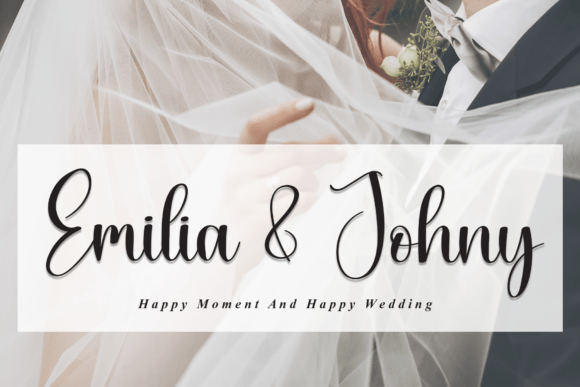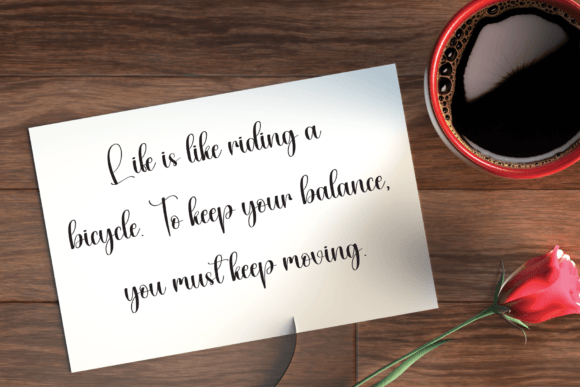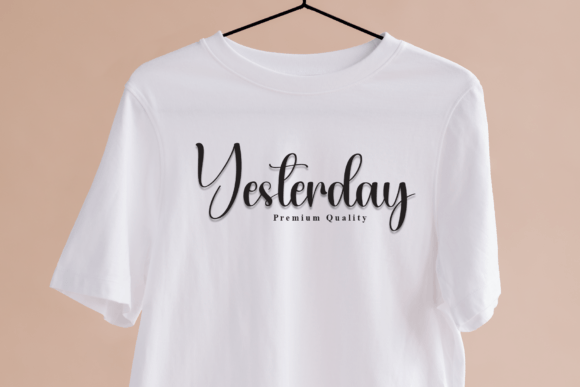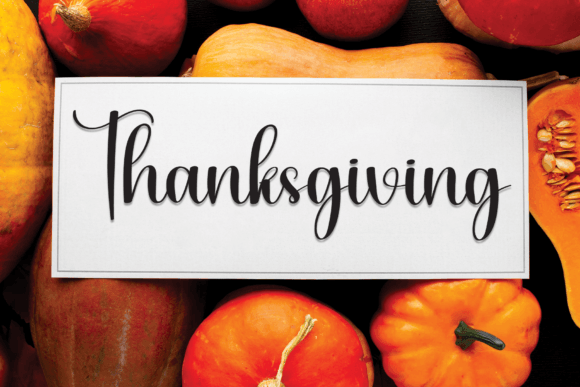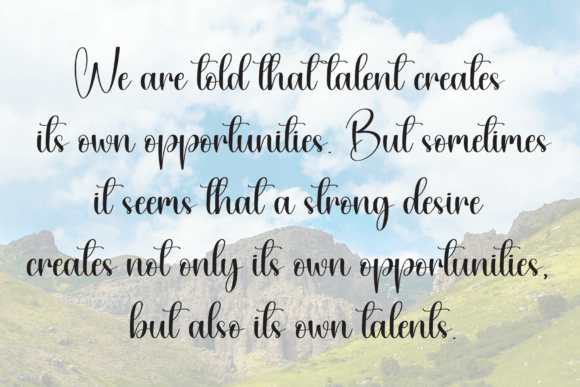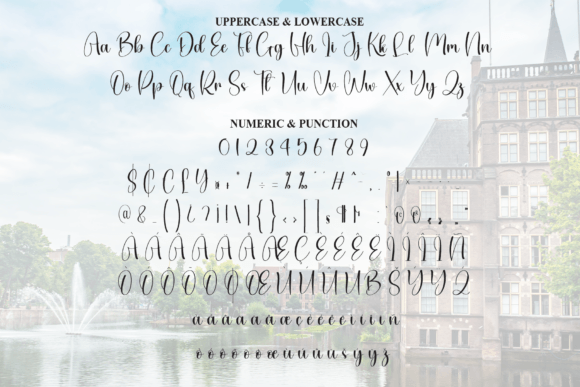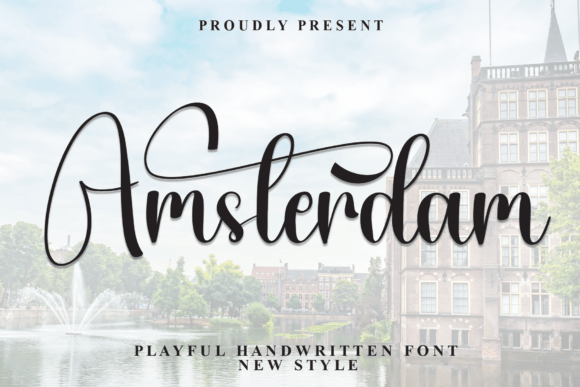
Introducing Amsterdam Font: Elevate Your Designs with Elegance and Modern Flair
In the world of typography, few fonts manage to strike a balance between elegance and modernity as effectively as Amsterdam. This stylish handwritten script font is designed to bring a touch of sophistication and warmth to any project, making it an ideal choice for designers and crafters looking to add a personal, refined touch to their work.
The Characteristics of Amsterdam Font
Amsterdam Font is characterized by its flowing strokes and organic curves, which give it a unique and effortless charm. The font’s design is rooted in traditional handwriting, yet it boasts a modern flair that sets it apart from more conventional script fonts. This blend of classic and contemporary elements makes Amsterdam versatile and adaptable, suitable for a wide range of applications.
Key Features of Amsterdam Font
- Elegant and Modern Design: Amsterdam’s design is both elegant and modern, making it perfect for projects that require a sophisticated look.
- Flowing Strokes and Organic Curves: The font’s flowing strokes and organic curves give it a natural, handwritten feel that adds warmth to any project.
- Versatile and Adaptable: Amsterdam is highly versatile and can be used in various contexts, from branding and invitations to social media and more.
- Effortless Charm: The font’s unique design imparts an effortless charm that can elevate the aesthetic of any project.
Use Cases for Amsterdam Font
Amsterdam Font’s versatility makes it suitable for a variety of projects. Here are some of the ideal use cases for this beautiful typeface:
Branding
For businesses looking to establish a strong brand identity, Amsterdam Font can add a touch of elegance and sophistication to logos, packaging, and marketing materials. Its unique charm can help a brand stand out in a crowded market.
Invitations and Stationery
Amsterdam is perfect for creating stylish invitations, greeting cards, and stationery. Its elegant design ensures that your correspondence stands out with a personal and refined touch.
Social Media and Digital Content
In the digital realm, Amsterdam Font can elevate social media graphics, blog posts, and website content. Its modern flair and readability make it an excellent choice for digital platforms.
Tips for Using Amsterdam Font Effectively
To make the most of Amsterdam Font, consider the following tips:
- Pair with Complementary Fonts: Amsterdam pairs well with clean sans-serif fonts for a balanced look or with serif fonts for added contrast.
- Adjust Letter Spacing: For optimal readability, adjust the letter spacing according to the project’s requirements.
- Use Appropriate Sizes: Ensure the font size is appropriate for the medium. Larger sizes for headings and smaller sizes for body text.
Amsterdam Font is a stylish and versatile typeface that can add a touch of elegance and modernity to any project. Its unique design, characterized by flowing strokes and organic curves, brings warmth and sophistication, making it ideal for a wide range of applications. Whether you’re a designer looking to elevate your branding, a crafter working on invitations, or a digital content creator, Amsterdam Font is sure to impress with its effortless charm and refined aesthetic.